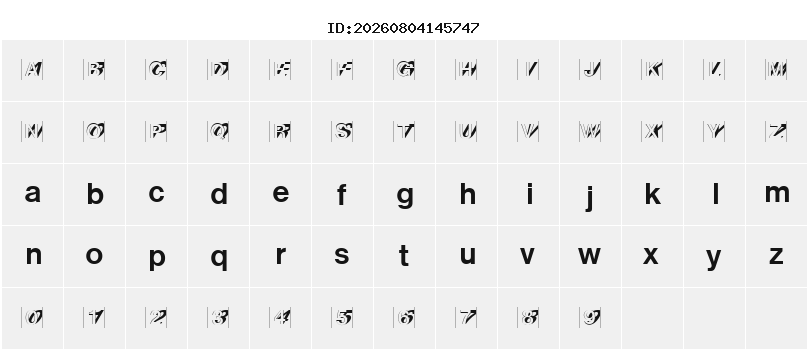
NimbusSanIniDBol Preview
• Font Name: NimbusSanIniDBol
• Full Font Name: NimbusSanIniDBol
• PostScript Name: NimbusSanIniD-Bold
About NimbusSanIniDBol.ttf
NimbusSanIniDBol.ttf is a modern, elegant sans-serif font designed for ultimate readability and visual harmony. Perfect for branding, headlines, web design, and print materials.